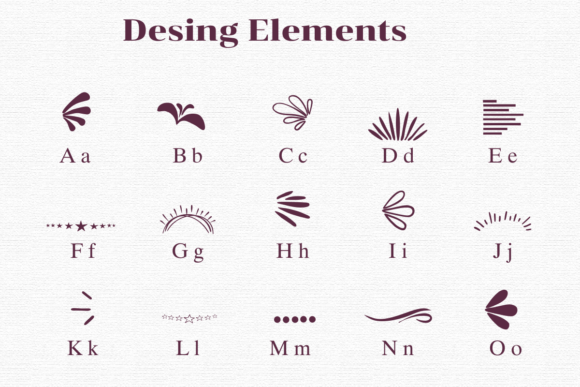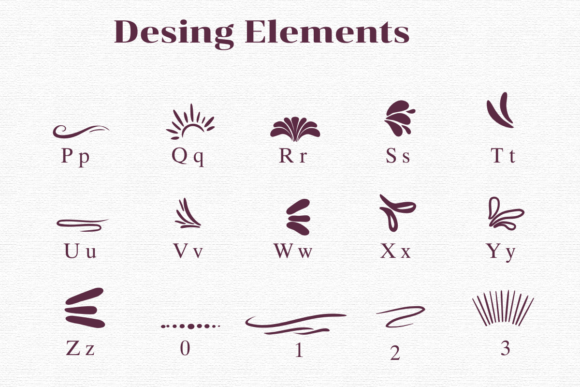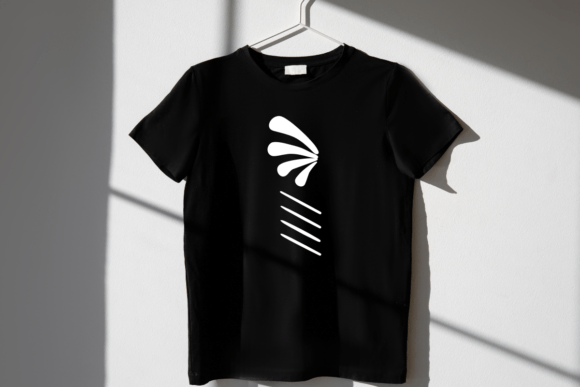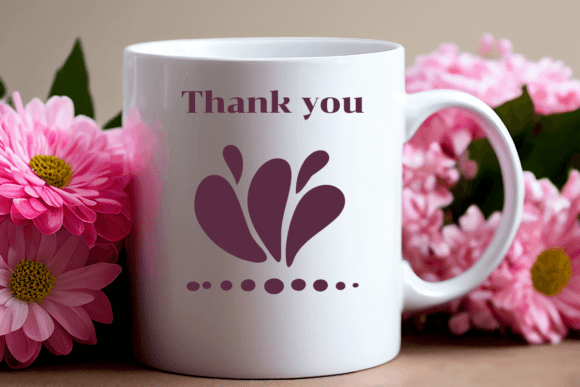
Design Elements is a dingbats font with theme with a sketch style. This font can enhance your creative projects such as wedding invitations, DIY, crafts, decorations, logos, and many other creative ideas.
Design Elements Font